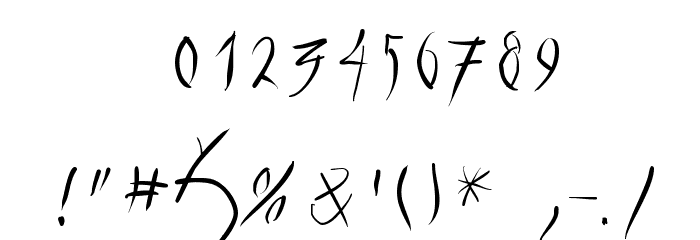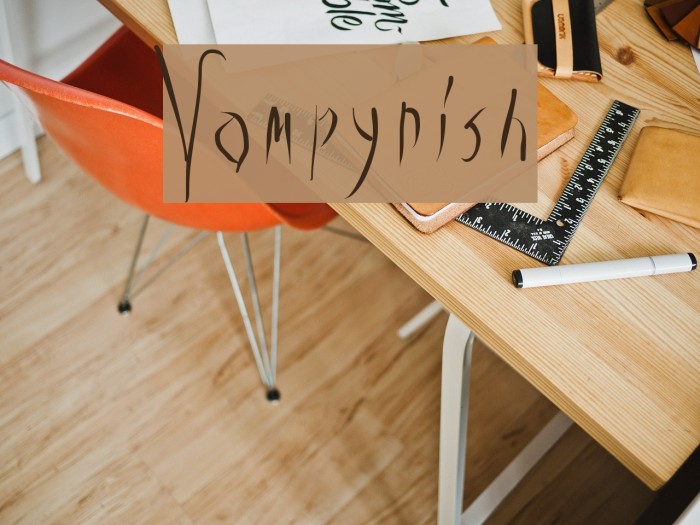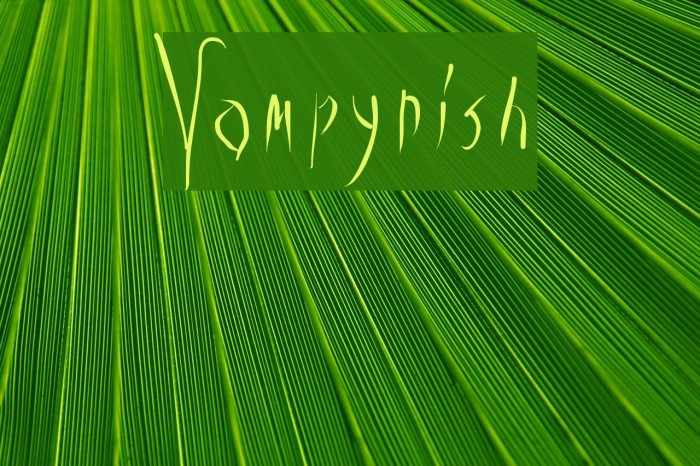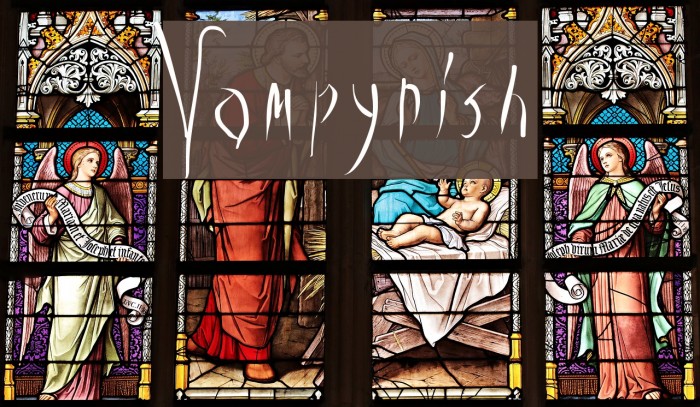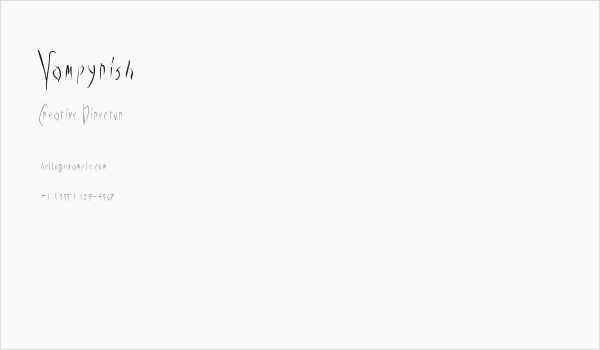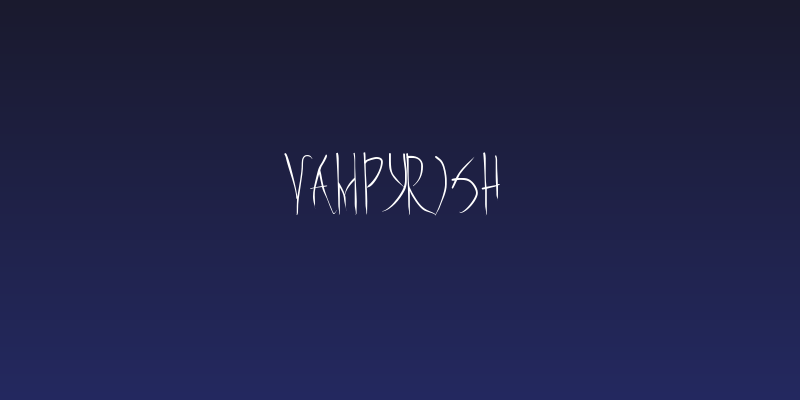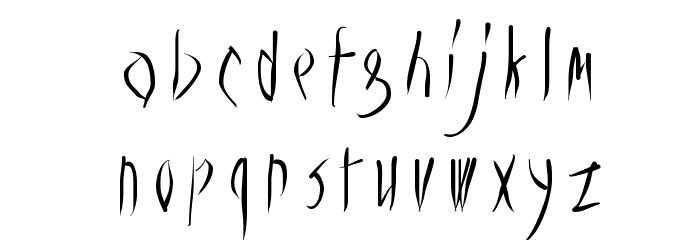
Vampyrish Font
Vampyrish Description
This font exudes a dark, mysterious aura with its elongated, sharp, and angular letterforms. The characters are reminiscent of gothic or horror themes, with a unique, spiky appearance that suggests a sense of drama and intensity. The uppercase letters are particularly tall and narrow, while the lowercase letters maintain a consistent style, adding to the font's cohesive look. The numerals and special characters follow the same design principles, ensuring uniformity across all glyphs. This font's distinct style makes it ideal for projects that require a touch of the eerie or supernatural.
| Overall Style | Gothic, Dramatic |
| Use Case | Headlines, Posters, Themed Events |
| Proposed Projects | Ideal for horror-themed posters, book covers, Halloween invitations, or any project needing a dramatic, eerie touch. |